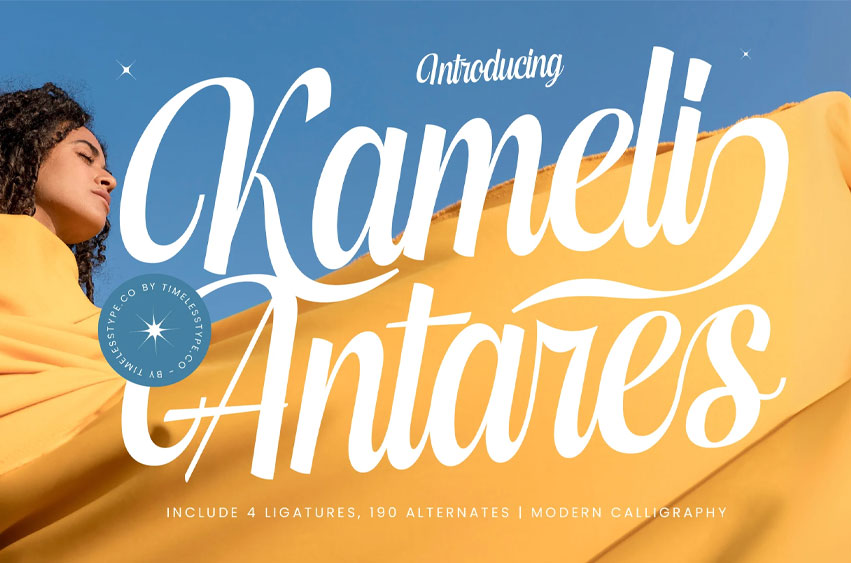
Kameli Antares Font
Kameli Antares Font is a modern calligraphy script font with graceful curves, elegant swashes, and a smooth handwritten flow. Its polished strokes, expressive movement, and stylish feminine charm make it perfect for wedding invitations, branding, packaging, social media quotes, logos, and high-end editorial design. The font carries an uplifting, romantic, and sunny personality that enhances any creative project with warmth and sophistication.
Featuring 4 ligatures and an impressive 190 alternates, Kameli Antares gives designers huge flexibility to craft beautifully customized lettering, luxurious logotypes, and expressive calligraphic compositions. Its refined curves, dynamic rhythm, and versatile stylistic options make it ideal for modern creatives who want a professional, elegant, and visually captivating script font.